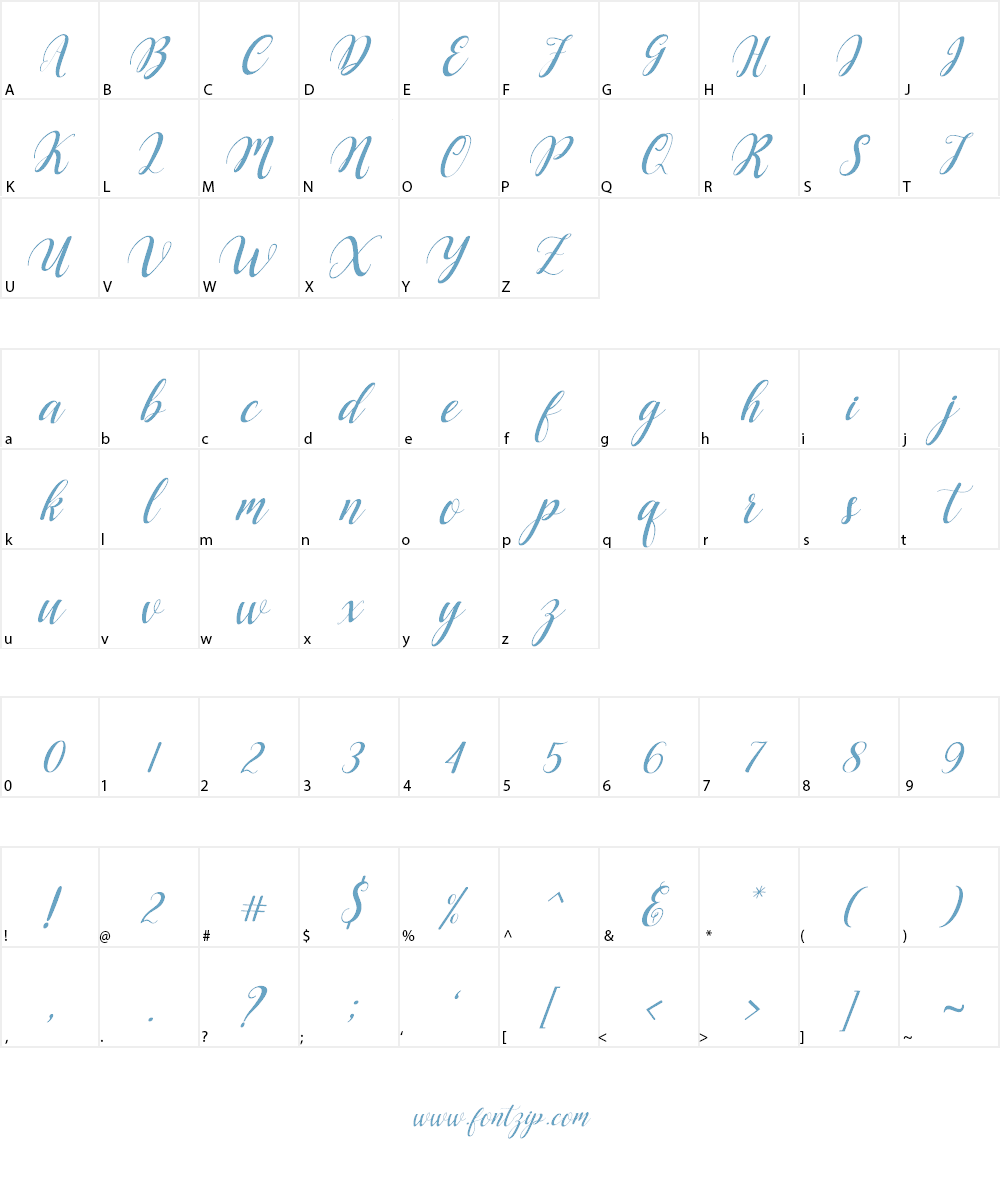
is a modern feminine font, each letter has been carefully crafted to make your text look beautiful. With modern script style, this font will be perfect for projects: photography, watermarks, quotes, headers of blogs, posters, weddings, branding, logos, fashions, clothes, letters, invitations, stationery, Angellie Fontigraphy New elegant fonts! For those of you who need an elegant and modern touch for your design, this font is made for you!